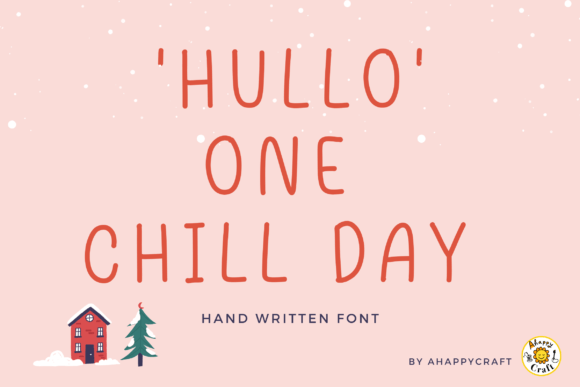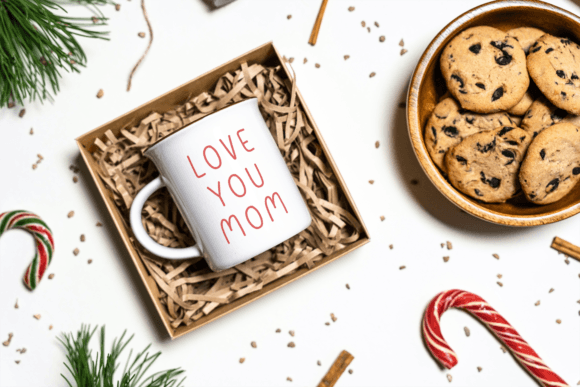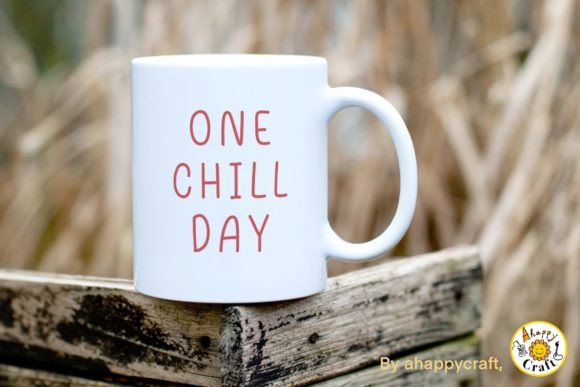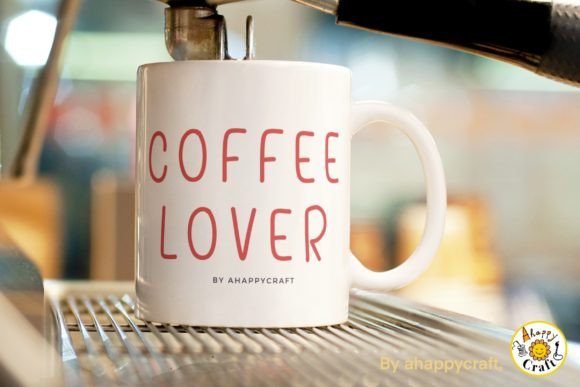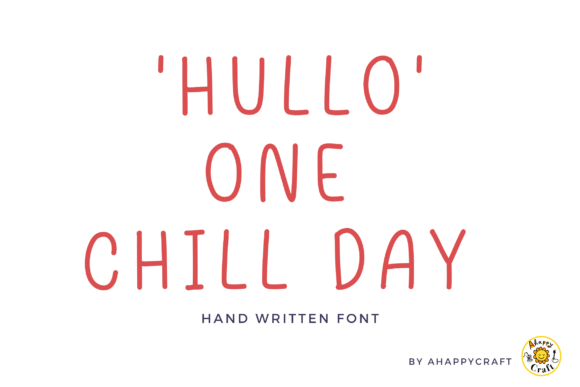
Introduction to One Fine Day Font Font
Fonts play a crucial role in design, and the One Fine Day Font font is a typeface that brings both character and versatility to any project. Whether you’re working on a branding project, a website, or a print design, the One Fine Day Font font offers a unique style that can elevate your work.
| 📌 Font Name | One Fine Day Font |
| 👤 Author | Ahappycraft |
One fine day is very cute modern handmade font with line handwritten style.
It is very nice freehand font , each alphabet are different and unique Come with all English alphabets and numbers and symbols.
Key Features of One Fine Day Font Font
Why Choose One Fine Day Font Font?
The One Fine Day Font font is more than just a typeface – it’s a design tool that helps you communicate your message with style and clarity. Its unique character set and versatile design make it suitable for a wide range of applications, from elegant invitations to bold headlines.
With its carefully crafted letterforms and balanced proportions, the One Fine Day Font font ensures readability and visual appeal across all mediums.
What makes One Fine Day Font font special?
The One Fine Day Font font stands out with its unique design, exceptional readability, and versatility across various design applications.